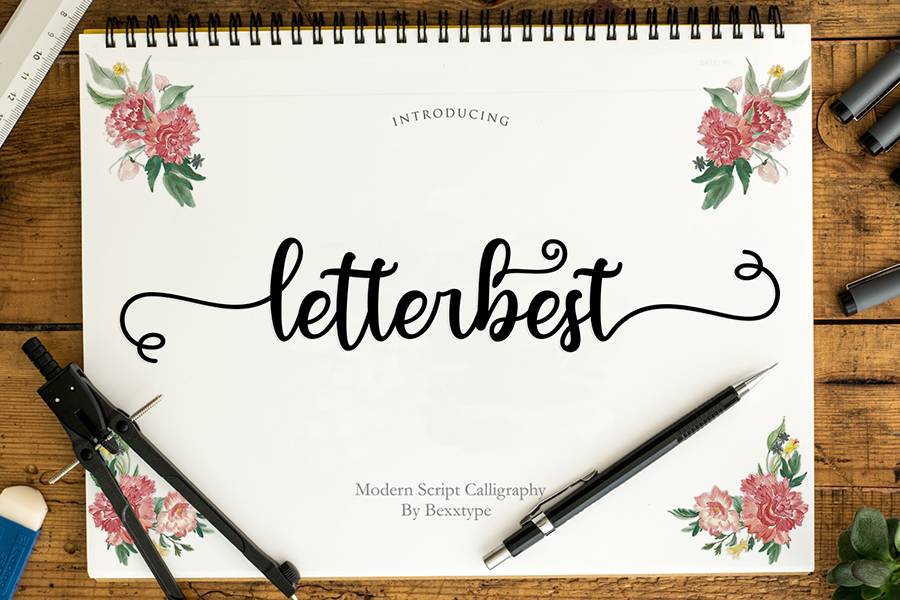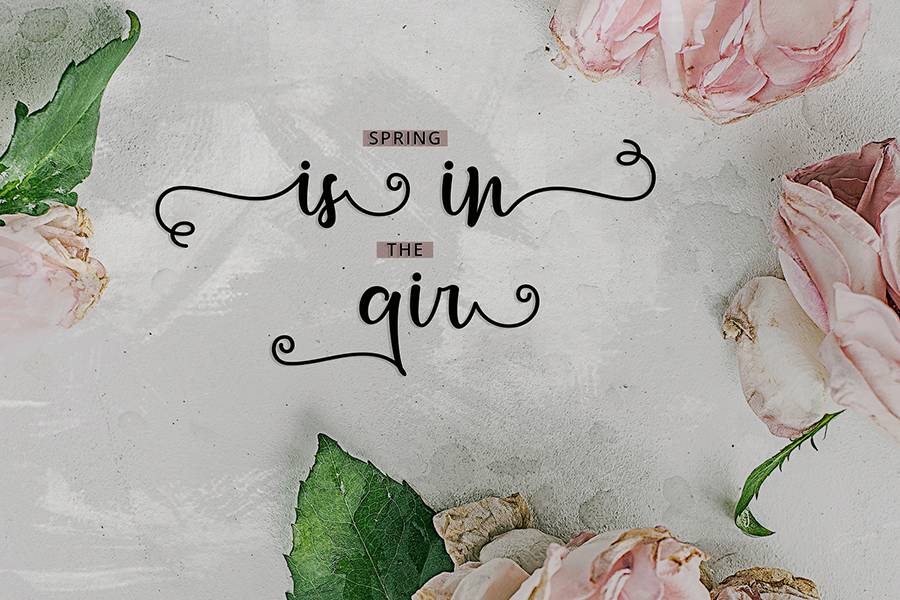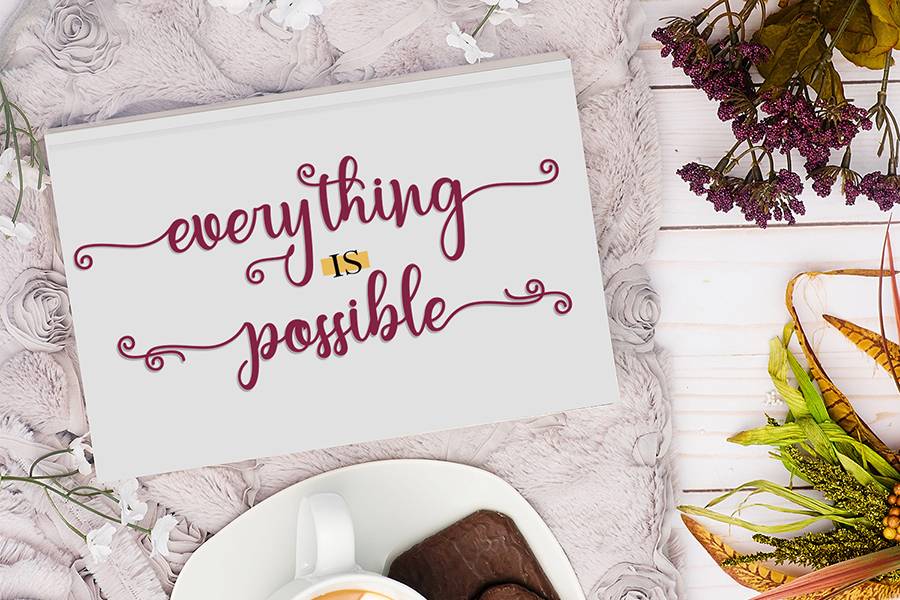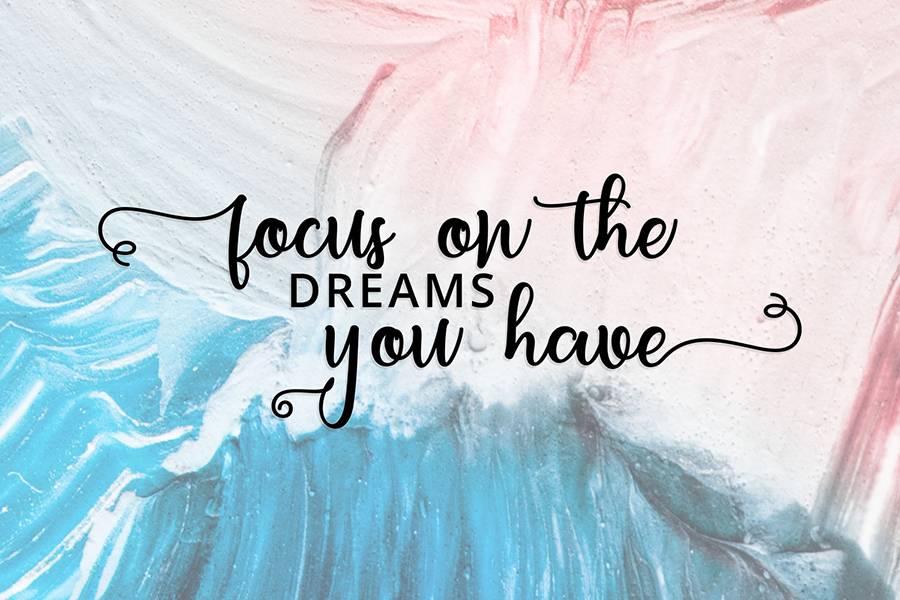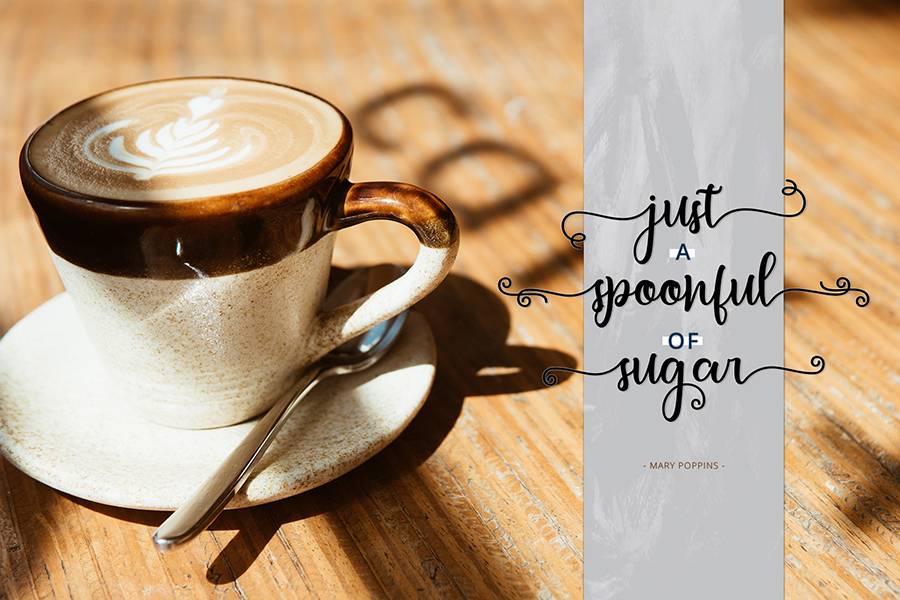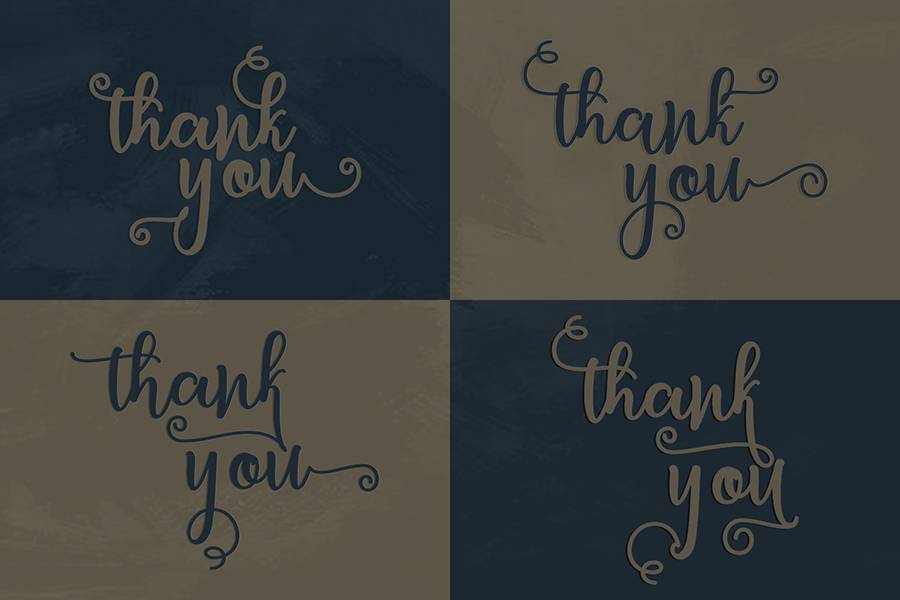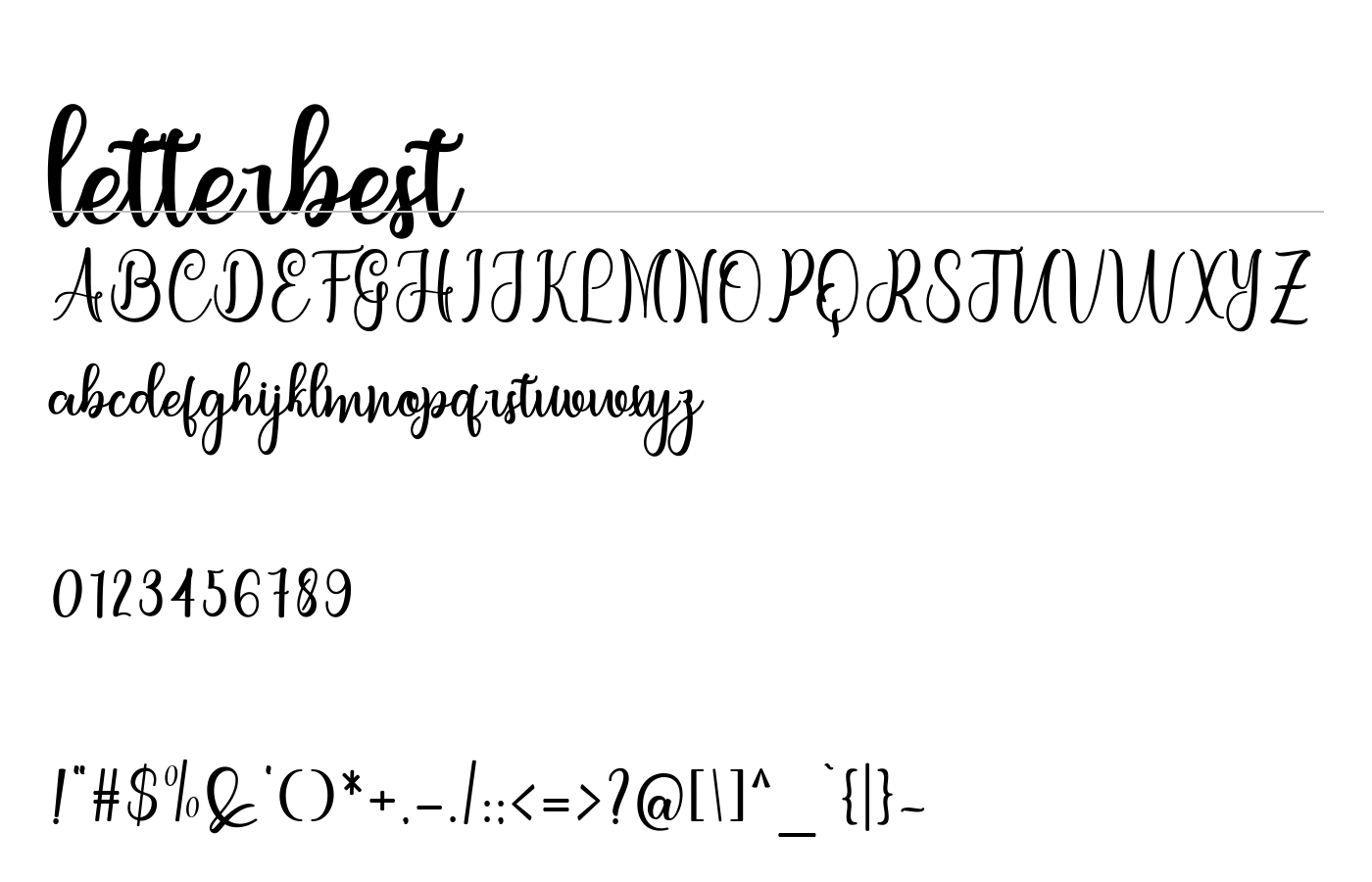
Letterbest Handlettering Script is a charming and elegant script font that features fluid, connected strokes with a natural, hand-drawn feel. It combines a playful yet sophisticated personality with distinct uppercase characters and smooth lowercase forms, making it perfect for invitations, branding, and creative projects that want a warm, personal touch. This font works beautifully in logos, packaging, and headlines where a stylish, handcrafted look is desired.
Letterbest Handlettering Script
About Letterbest Handlettering Script
| Font family | Letterbest Handlettering Script |
| Release date | 2019-04-30 |
| Designer | Syahputra/Bexxtype |